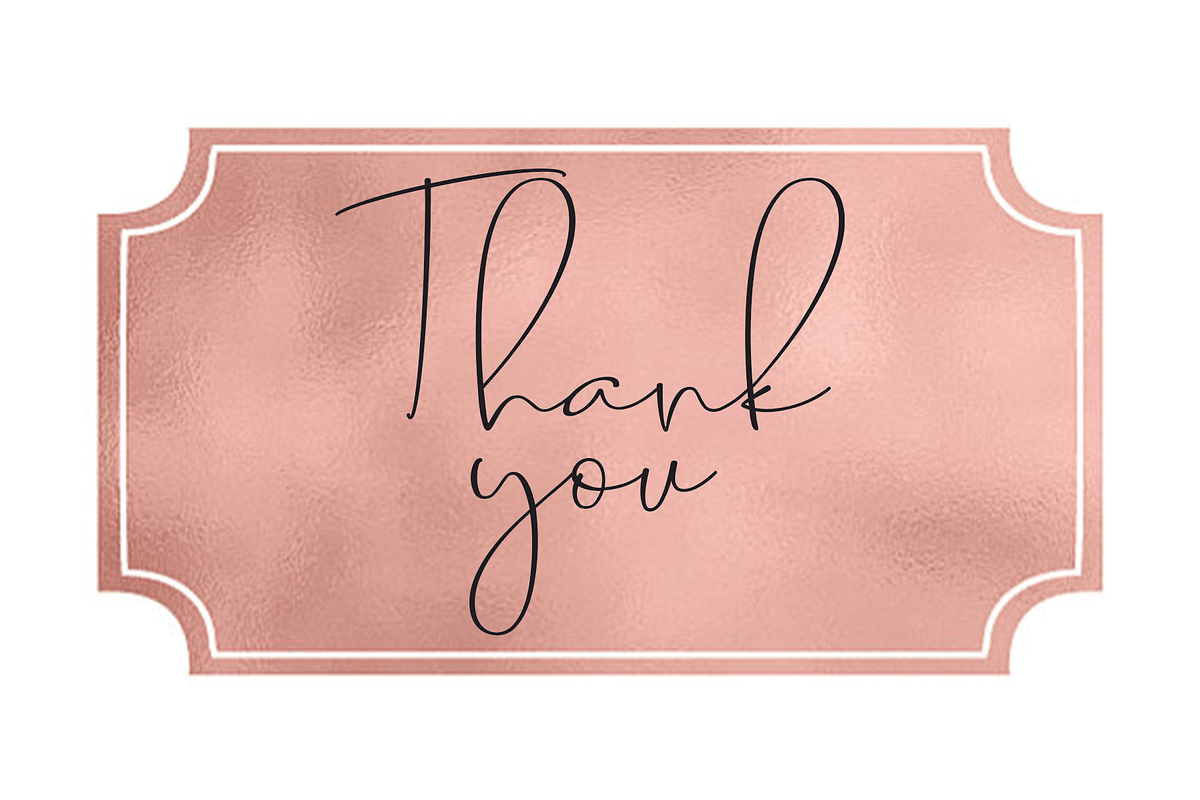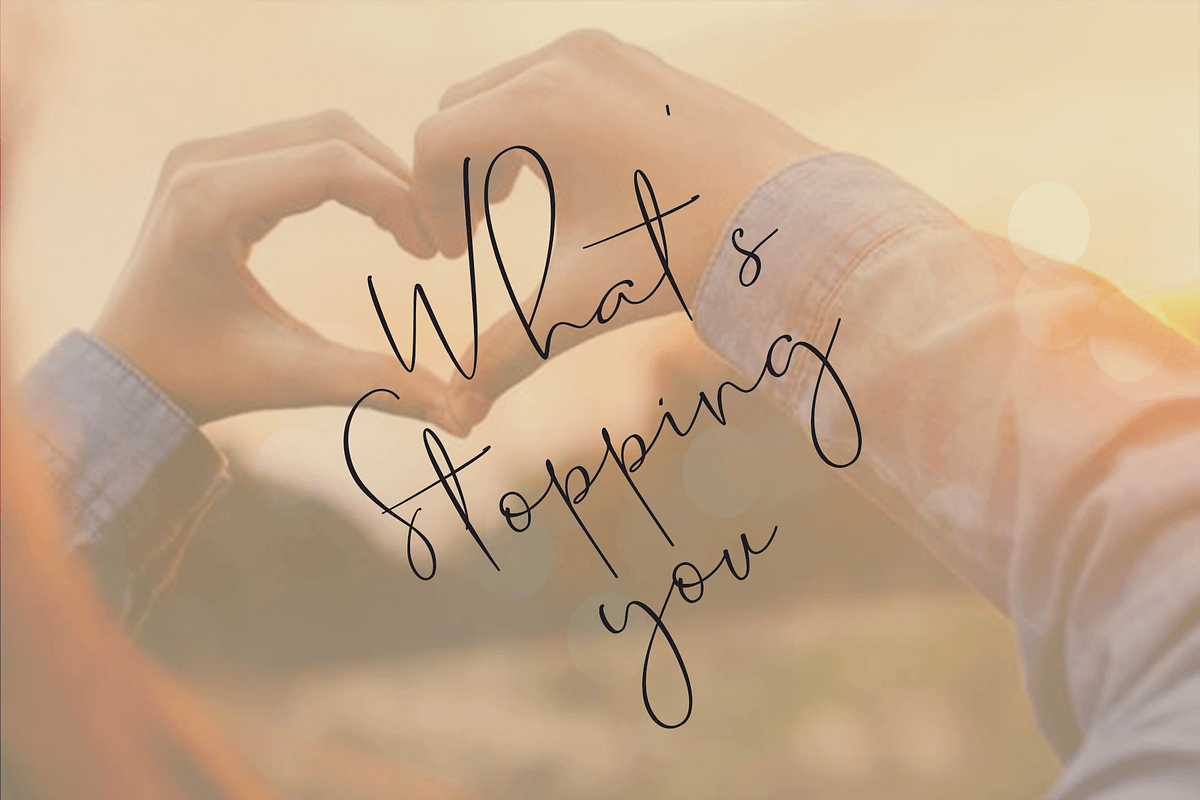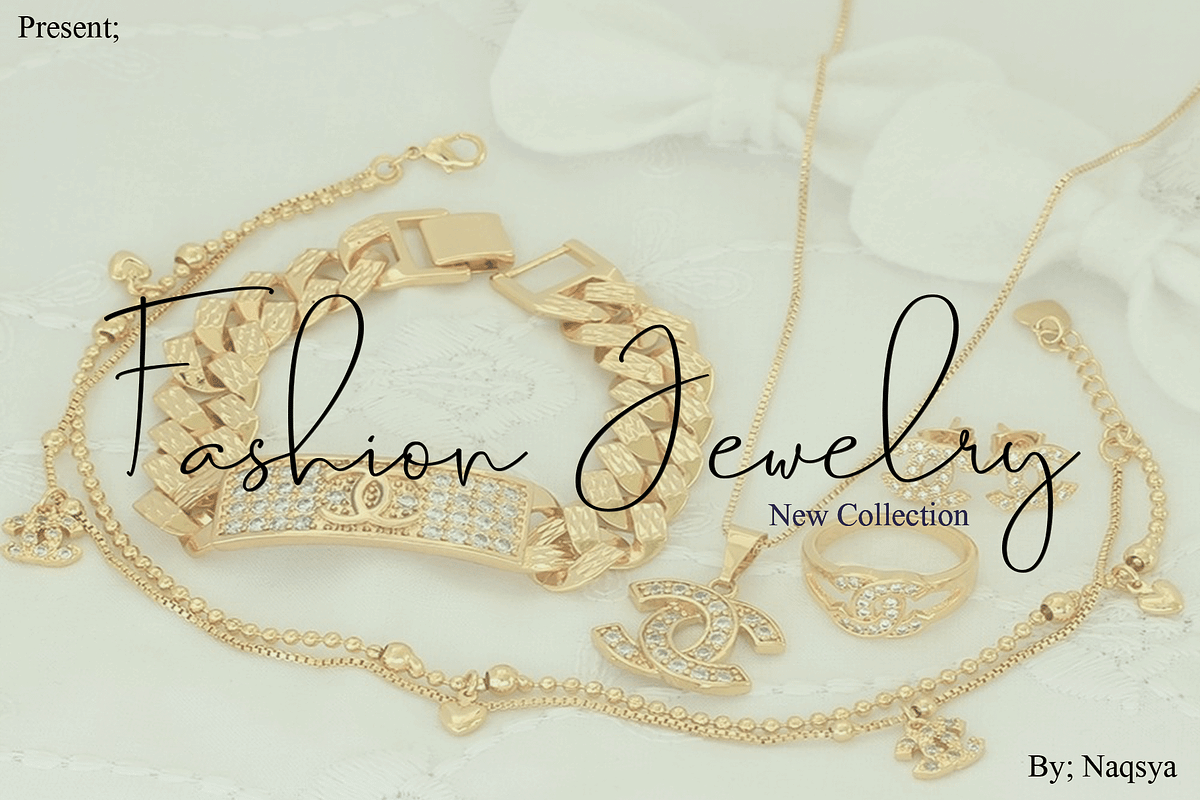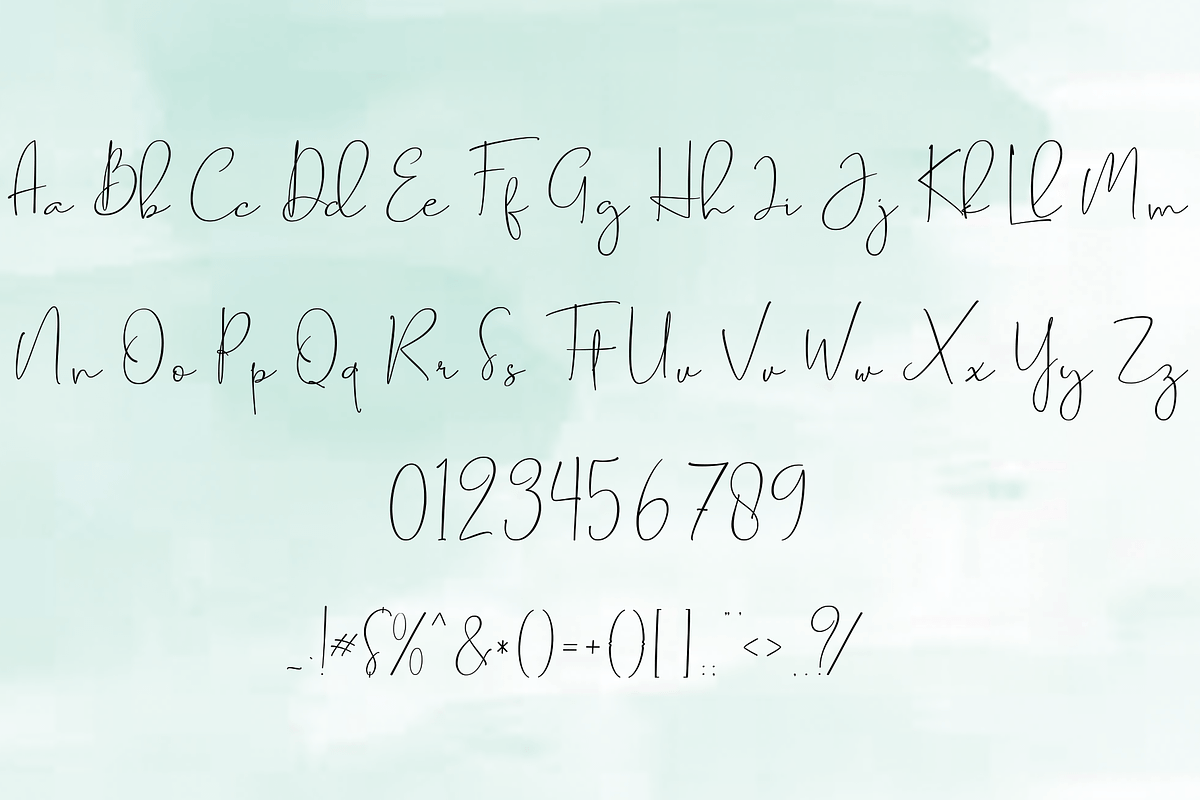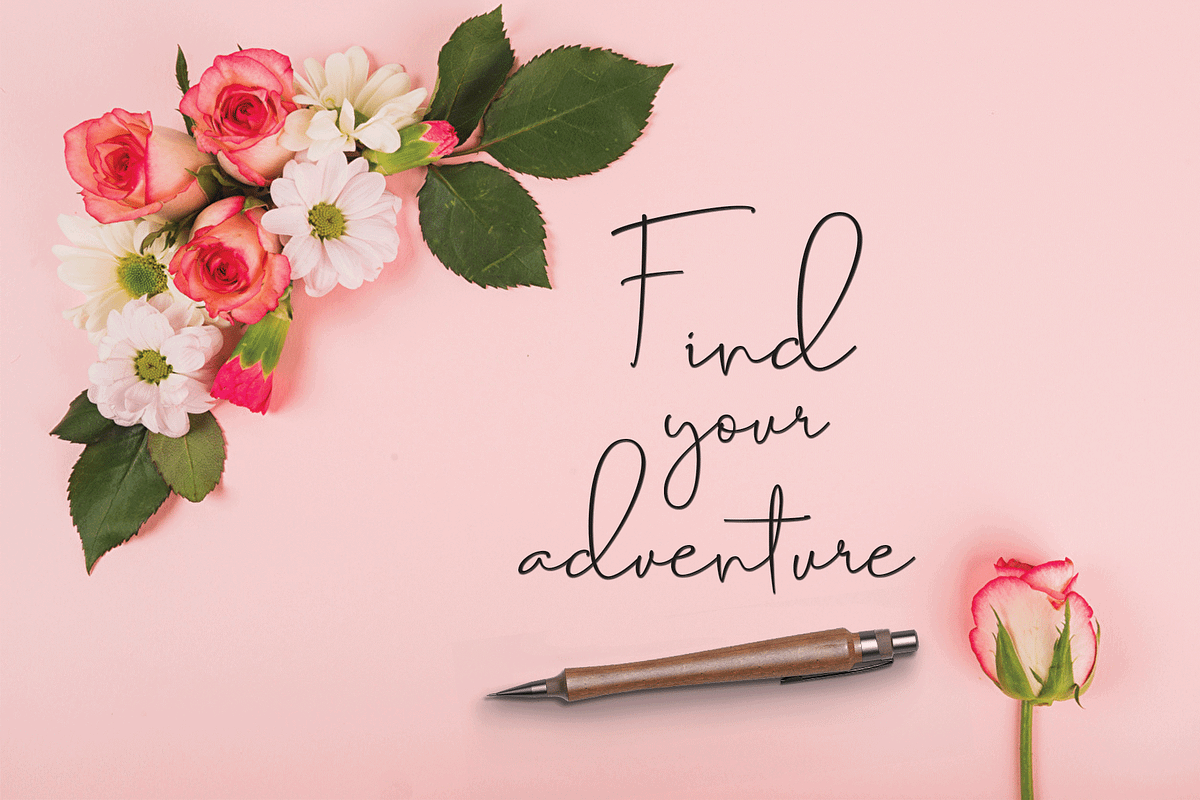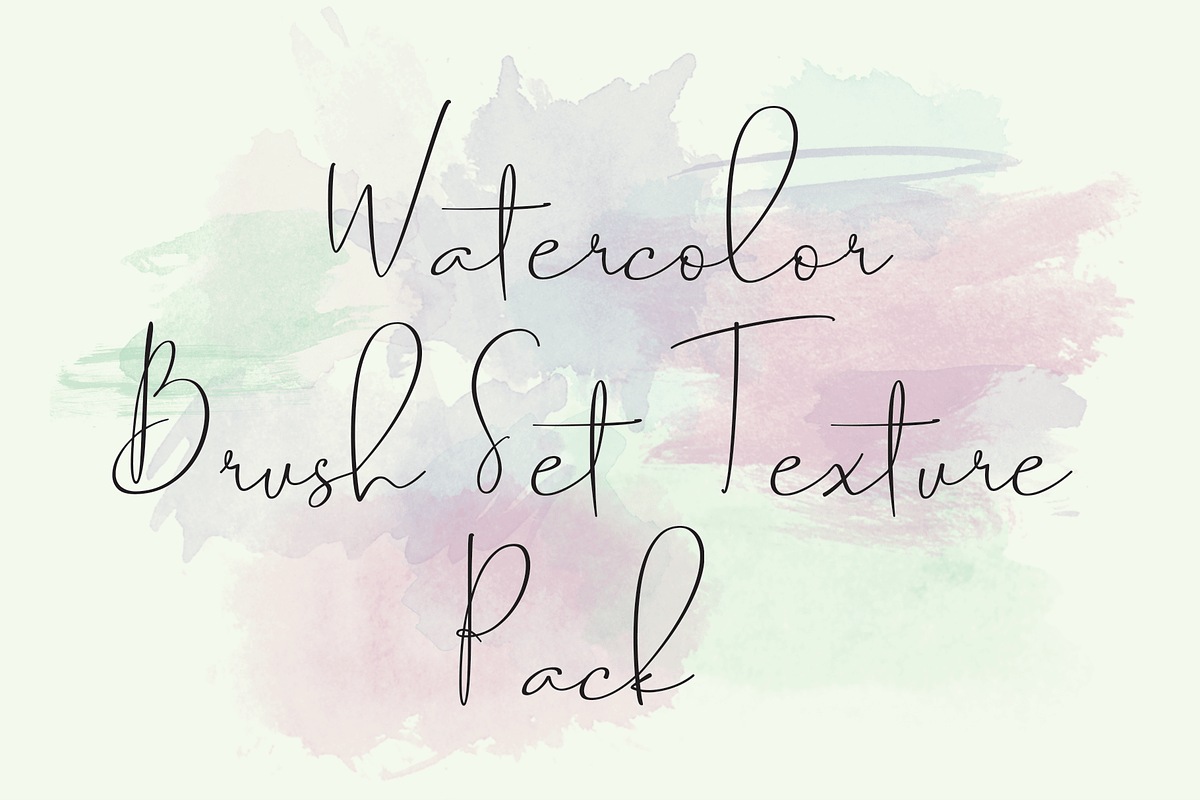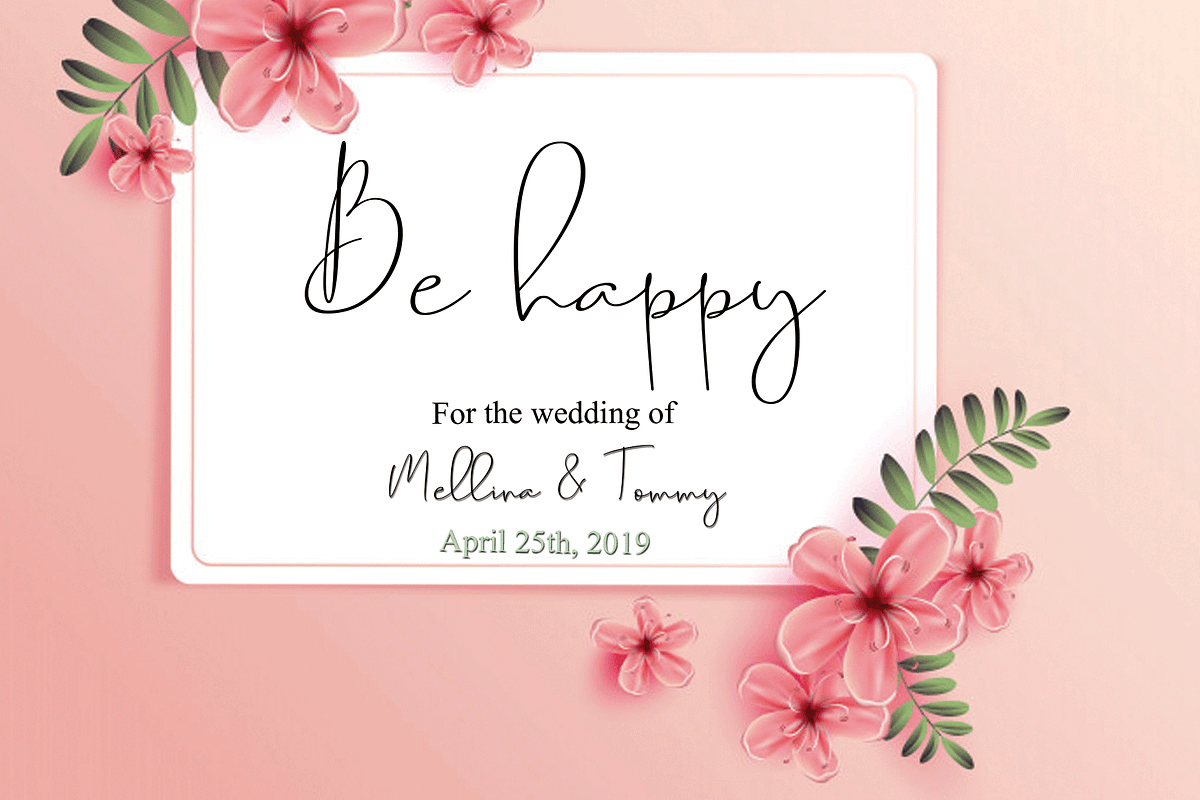
Berliant Font
Berliant is Modern font style signature. This font was designed by handwriting, and it has a modern and unique forms of calligraphy, the writing style is very natural.
The Features of this fonts is;
Standart ligatures Discretionary ligatures